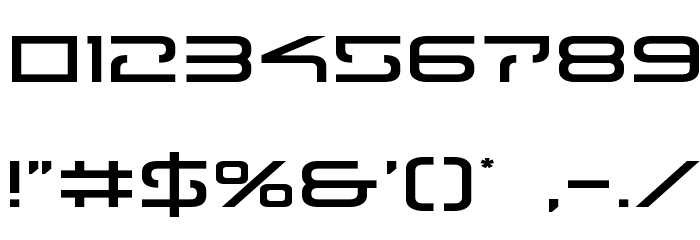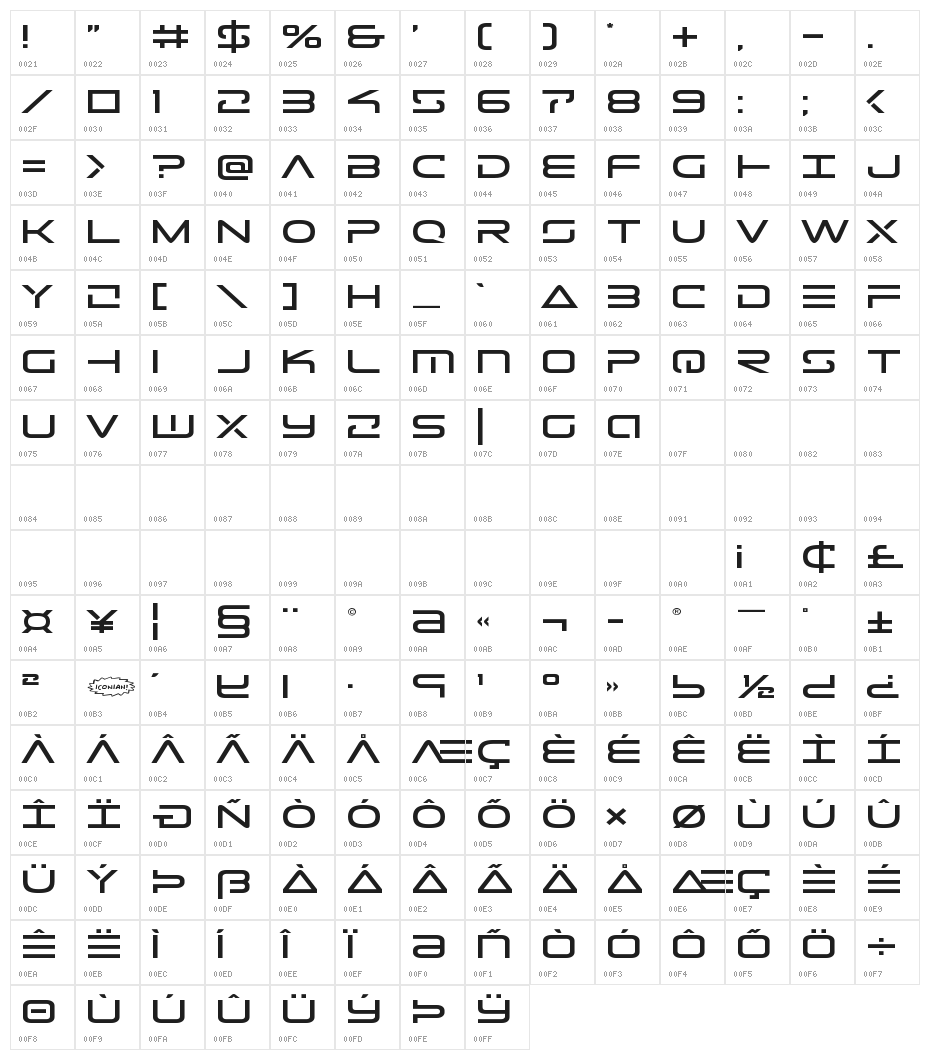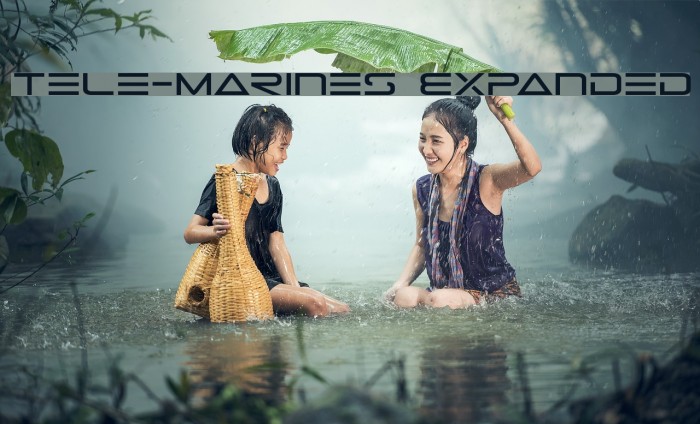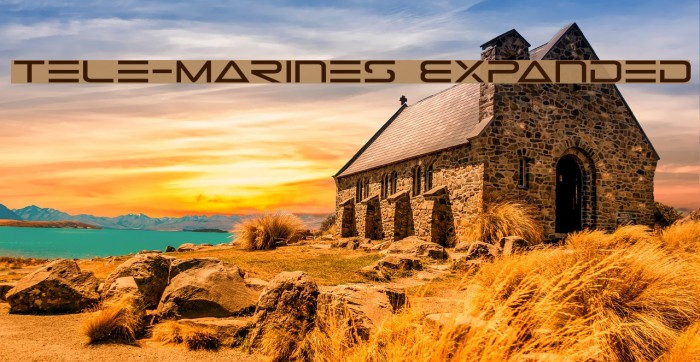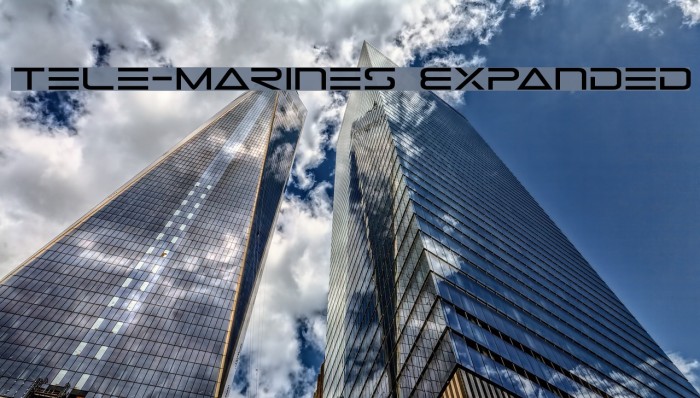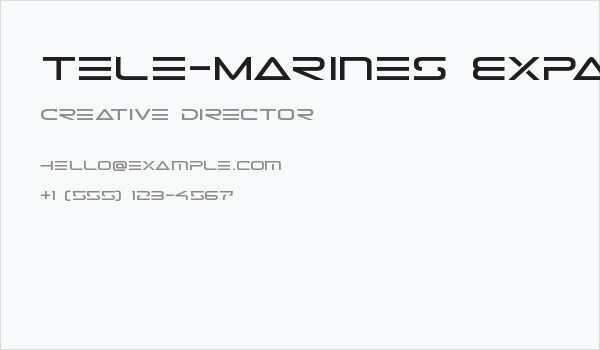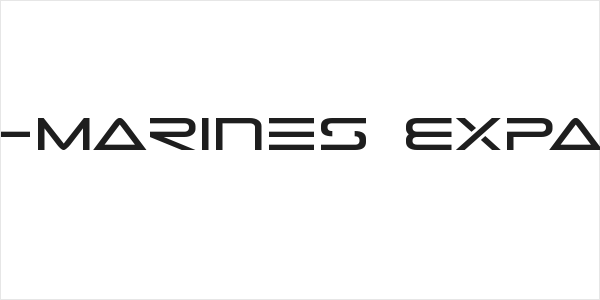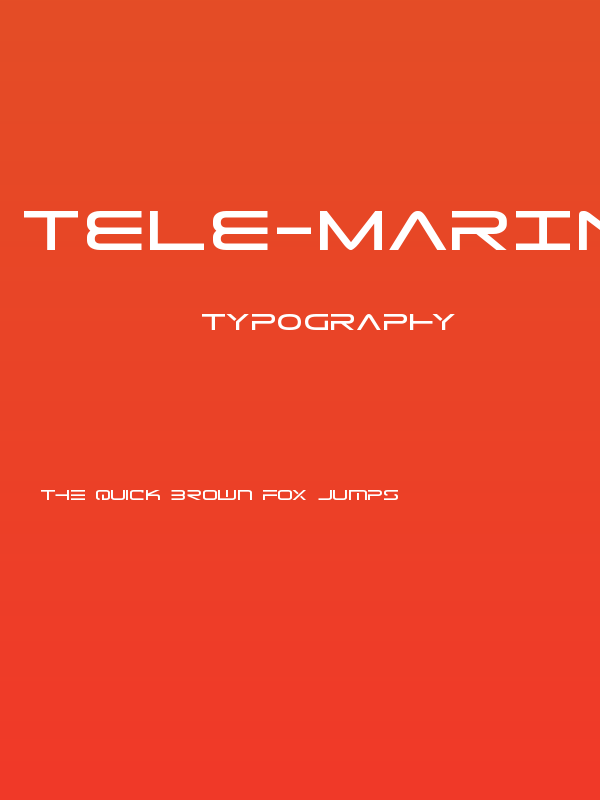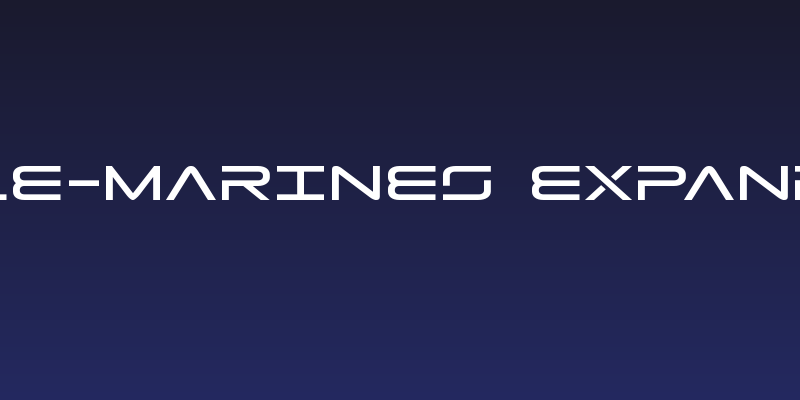
Tele-Marines Expanded Font
Tele-Marines Expanded Description
This font features a futuristic and geometric design, characterized by its sharp angles and clean lines. The uppercase letters are distinct with a modern, tech-inspired aesthetic, while the lowercase letters maintain a consistent style that complements the uppercase. The numerals are bold and clear, making them easily readable. Special characters are designed with the same attention to detail, ensuring a cohesive look across all symbols. The font's expanded width gives it a unique presence, making it ideal for projects that require a bold statement.